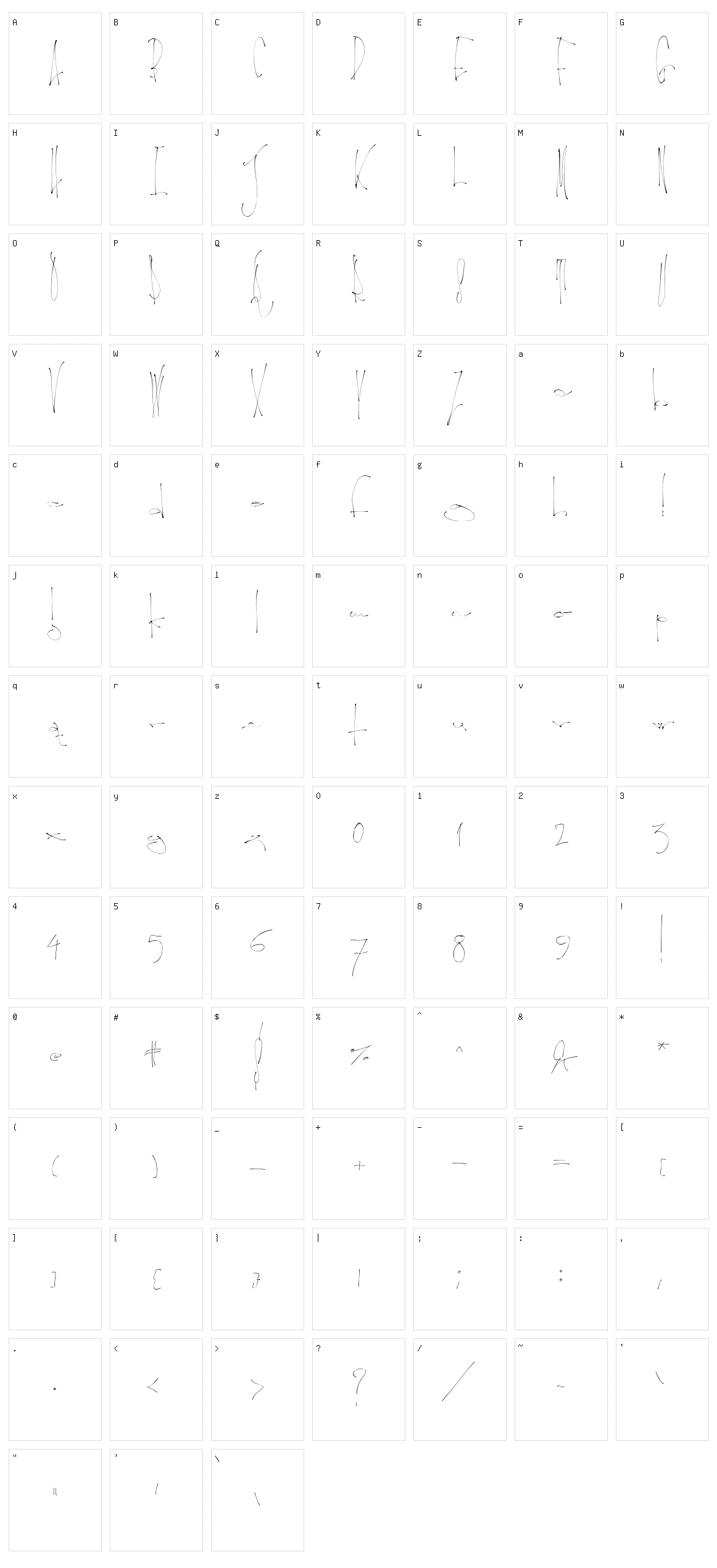
The free font Lyrics Movement is carefully designed by Mans Greback, showcasing a thoughtful balance of creativity and usability and falls under the Script font style. When you download the ZIP file, it contains only 391.63 KB of font files, making it lightweight and quick to download. Please review the license details below to understand permitted usage and distribution rights. If license information is not available, we recommend using this font for personal projects only or contacting the author directly for commercial usage permissions.